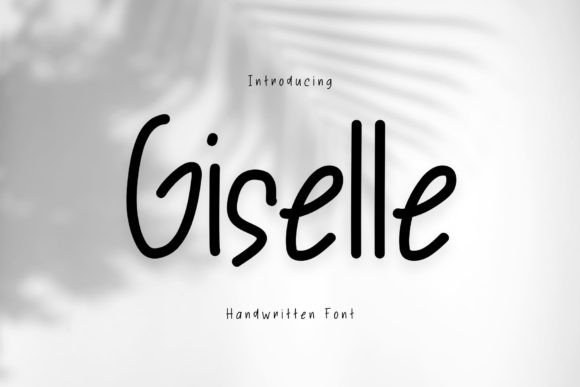
Introducing Giselle Font: Unleash Your Creativity with this Enchanting Handwritten Display Script!
Step into the world of captivating typography with Giselle Font, a charming handwritten display script that exudes playfulness and authenticity. Created by the talented Brown Cupple Fonts, Giselle is not just a font; it's an artistic expression that brings your creative visions to life.
Escape the ordinary and embrace the extraordinary with Giselle Font. Its graceful letterforms and whimsical style add a touch of magic to your designs, making them stand out from the crowd. Whether you're creating stunning blog posts, eye-catching logos, or memorable branding materials, Giselle Font is your perfect companion.
With its effortless flow and undeniable charm, Giselle Font transforms your words into works of art. Its playful personality shines through in every letter, inviting your audience to engage with your content on a deeper level. From heartfelt invitations to delightful greeting cards, Giselle Font adds a personal touch that leaves a lasting impression.
Dive into a world of endless possibilities with Giselle Font. Design captivating planners and photo albums that capture life's precious moments. Create enchanting decorations that transform ordinary spaces into whimsical wonderlands. Unleash your imagination and explore new horizons with Giselle Font, the ultimate creative tool for all your design endeavors.